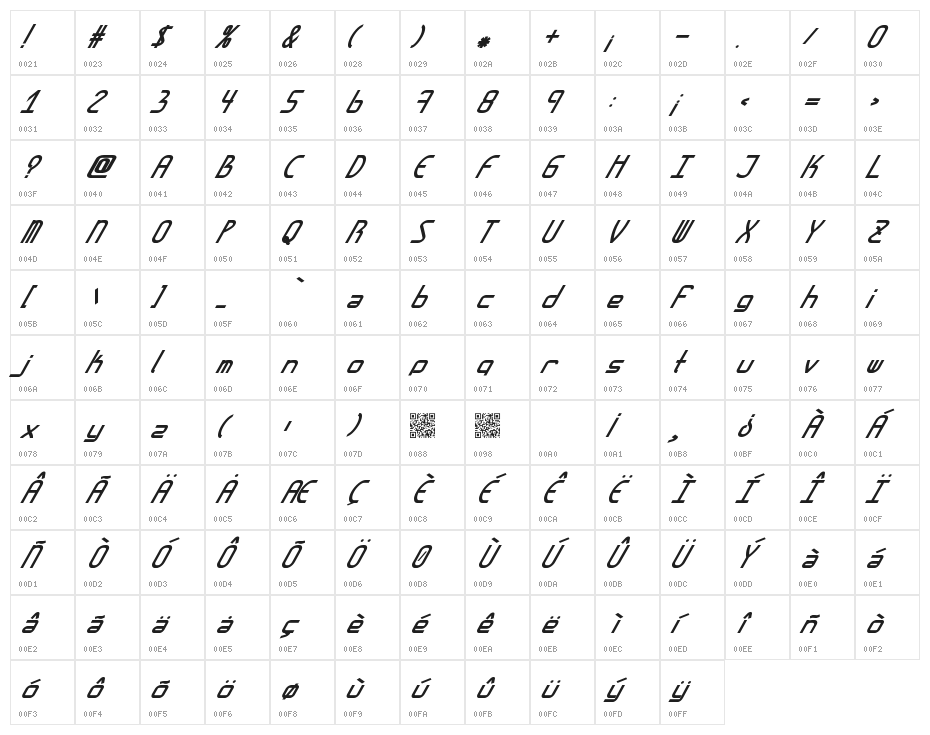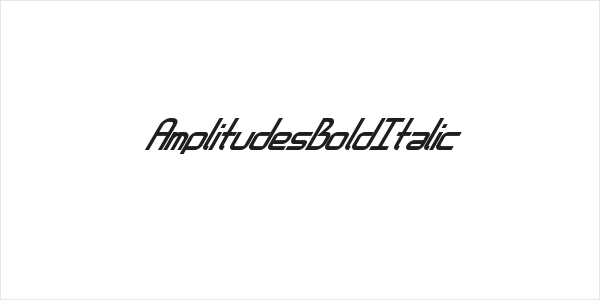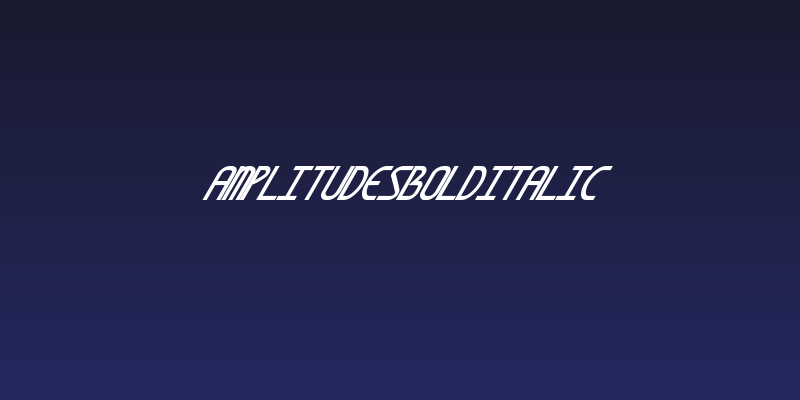
AmplitudesBoldItalic Font
AmplitudesBoldItalic Description
This font features a dynamic and modern design with a bold and italicized style. The characters are elongated and slightly slanted, giving a sense of motion and speed. The strokes are consistent in thickness, providing a uniform appearance across all characters. The uppercase letters are tall and commanding, while the lowercase letters maintain a similar width, ensuring readability. Numbers and special characters are designed to match the overall aesthetic, with a sleek and futuristic look. The font's unique style makes it suitable for projects that require a contemporary and energetic feel.
| Use Case | Logos, Headlines, Branding |
| Proposed Projects | Ideal for branding, sports team logos, automotive designs, and modern advertising. |